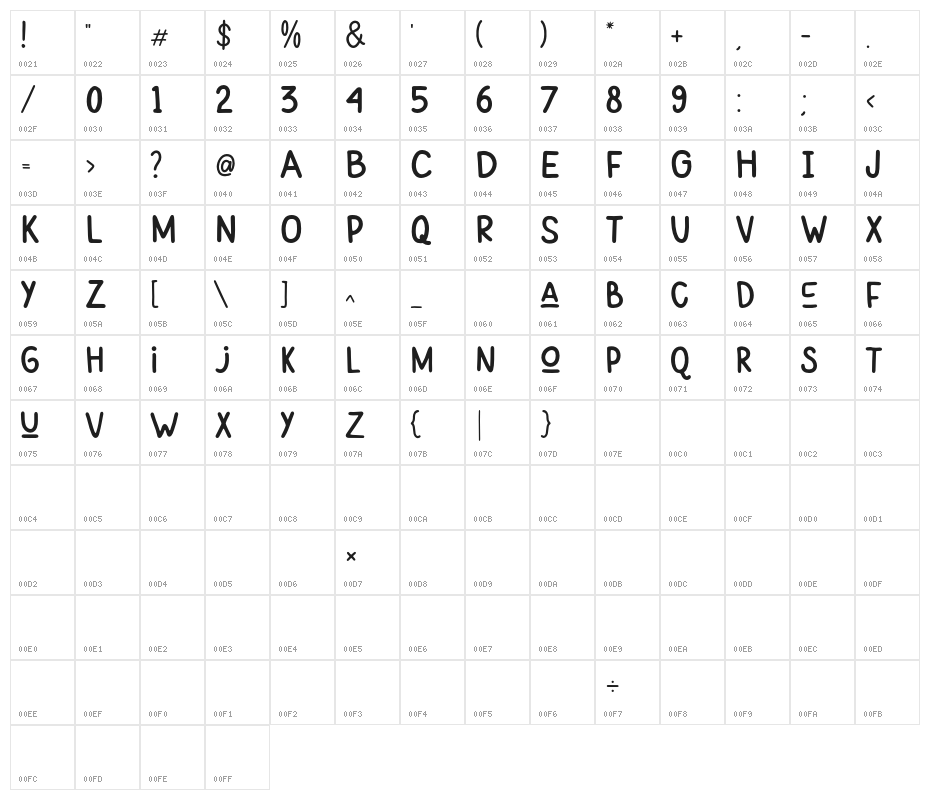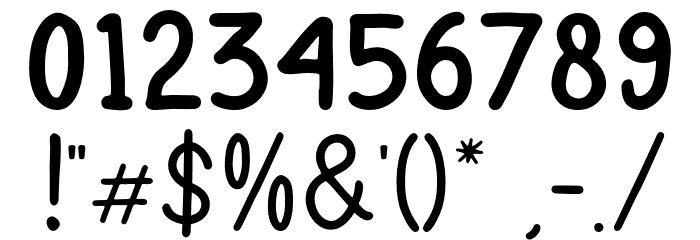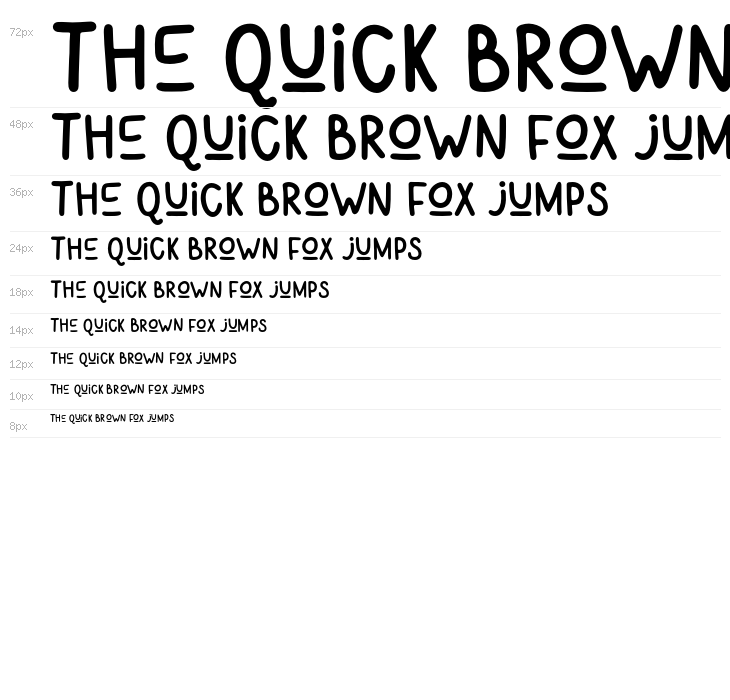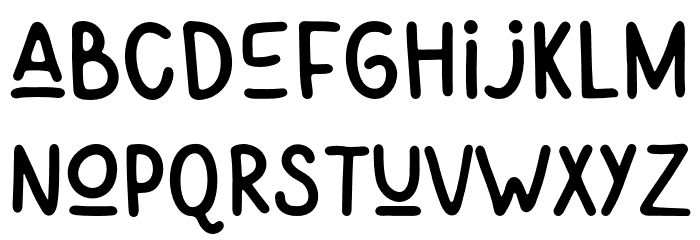
HandyMode-Regular Font
HandyMode-Regular Description
This font features a playful and casual handwritten style, characterized by its rounded edges and slightly irregular letterforms. The strokes are consistent in width, providing a uniform appearance, while the overall design maintains a friendly and approachable feel. The characters are well-spaced, ensuring readability, and the font includes a full set of uppercase and lowercase letters, numerals, and a variety of special characters. Its informal style makes it suitable for projects that require a personal touch or a relaxed aesthetic.
| Use Case | Headlines, Informal text, Branding |
| Proposed Projects | Ideal for greeting cards, children's books, casual branding, and social media graphics. |